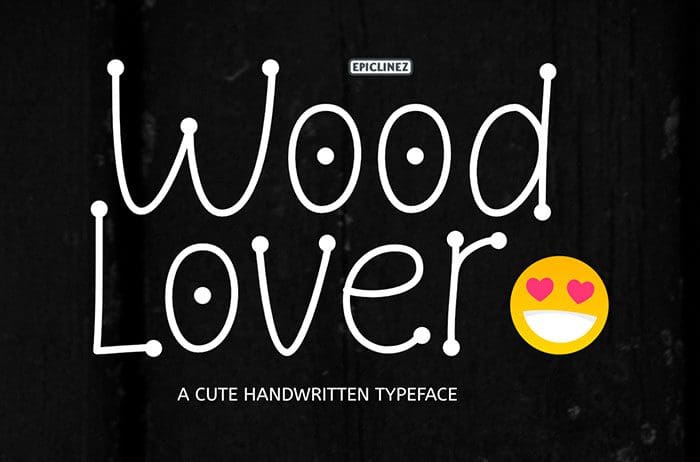
Wood Lover Decorative Font
Wood lover decorative font embodies fun, cuteness, and authenticity. Use this gorgeous and playful display font to bring any DIY project to life! This font is available only for personal use. Created this font by Epiclinez. You can also search more free Decorative Fonts. Thanks!